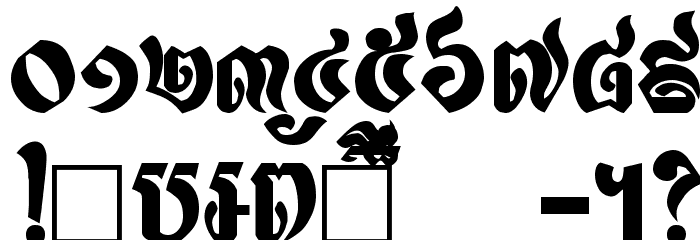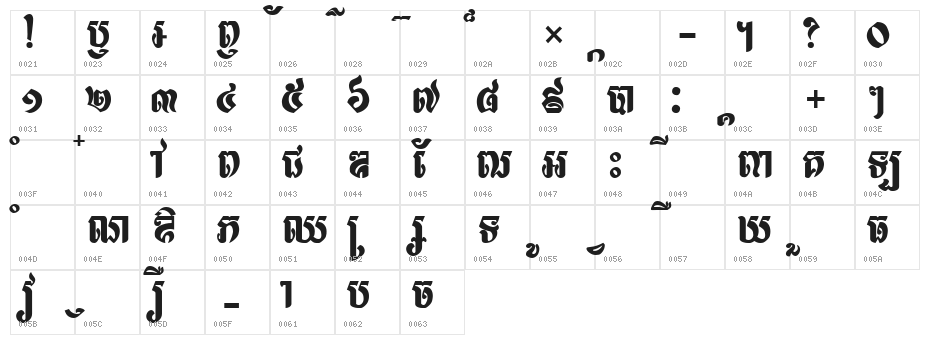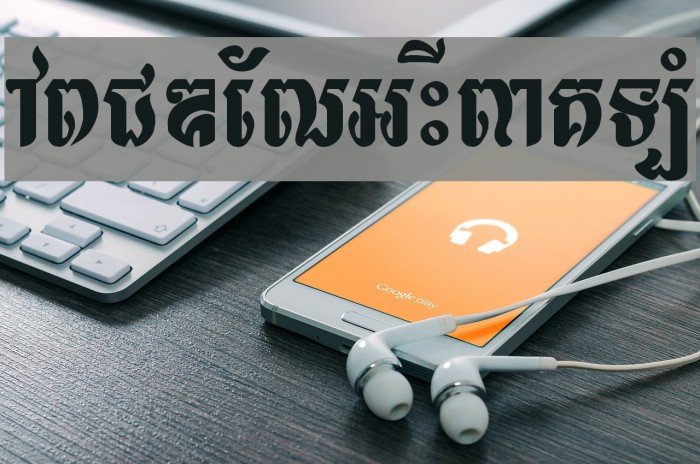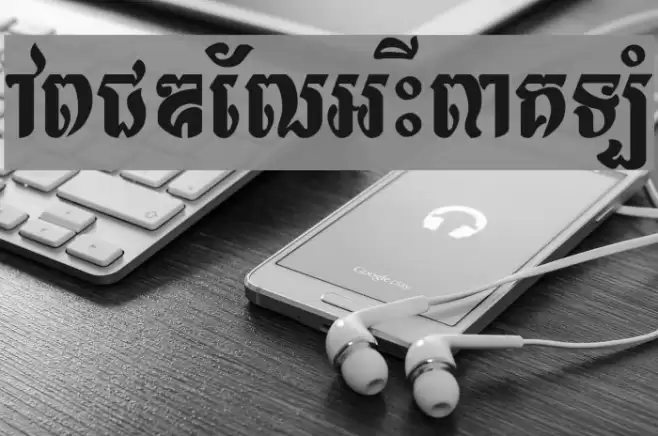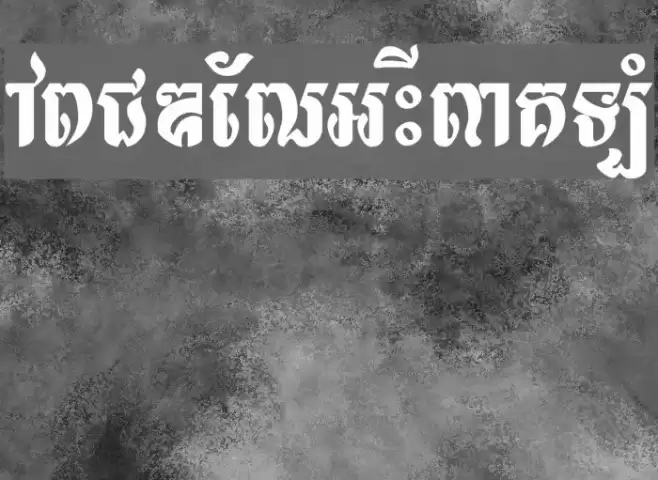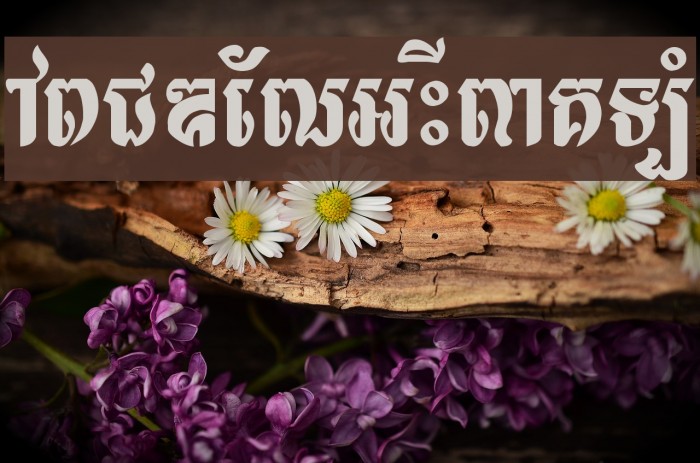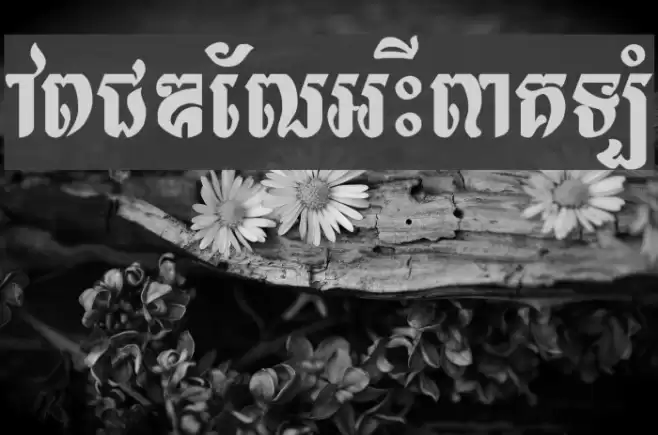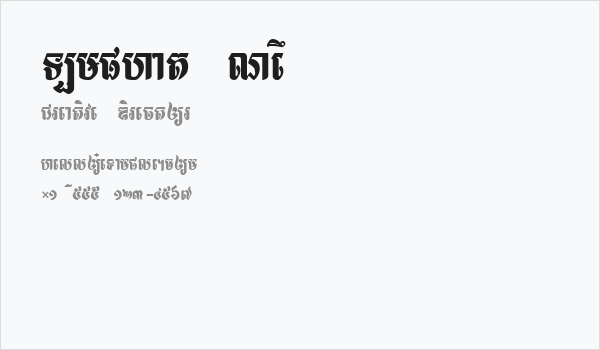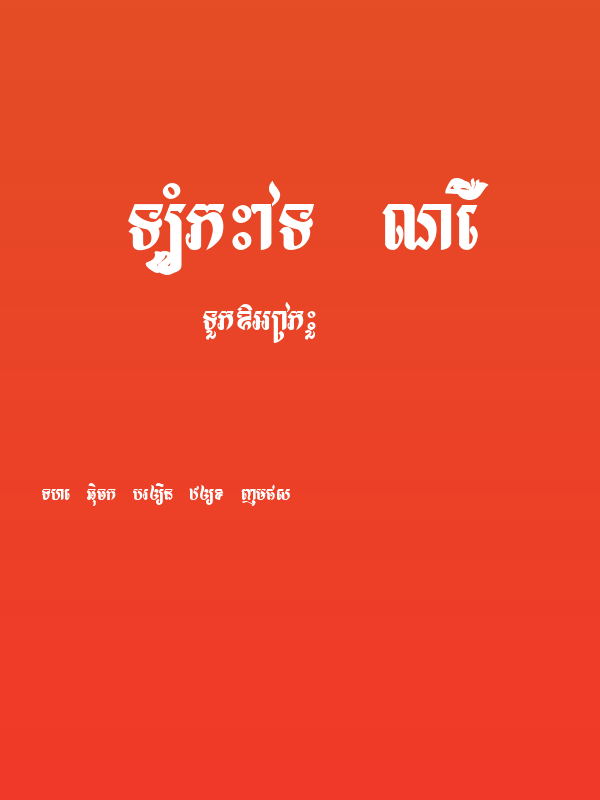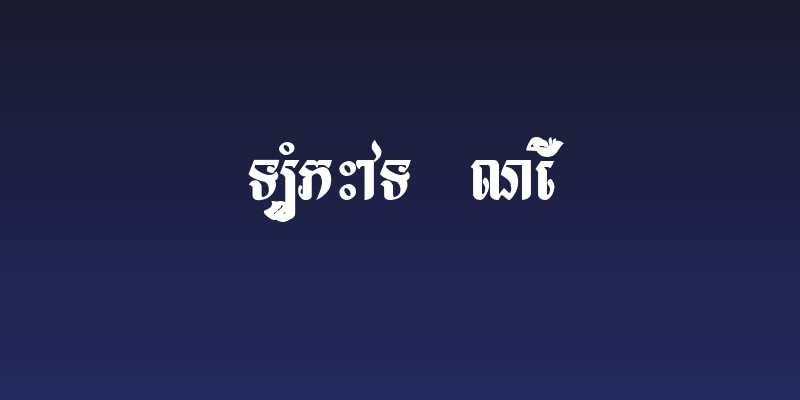
Lumphat New Font
Lumphat New Description
This font features a bold and dramatic style with high contrast between thick and thin strokes, giving it a striking and impactful appearance. The characters are designed with intricate details and flourishes, adding a sense of elegance and sophistication. The overall look is reminiscent of traditional calligraphy, with a modern twist that makes it suitable for contemporary designs. The font's unique style is characterized by its decorative elements and artistic flair, making it stand out in any design project. The spacing between characters is tight, enhancing the boldness and visual impact of the text.